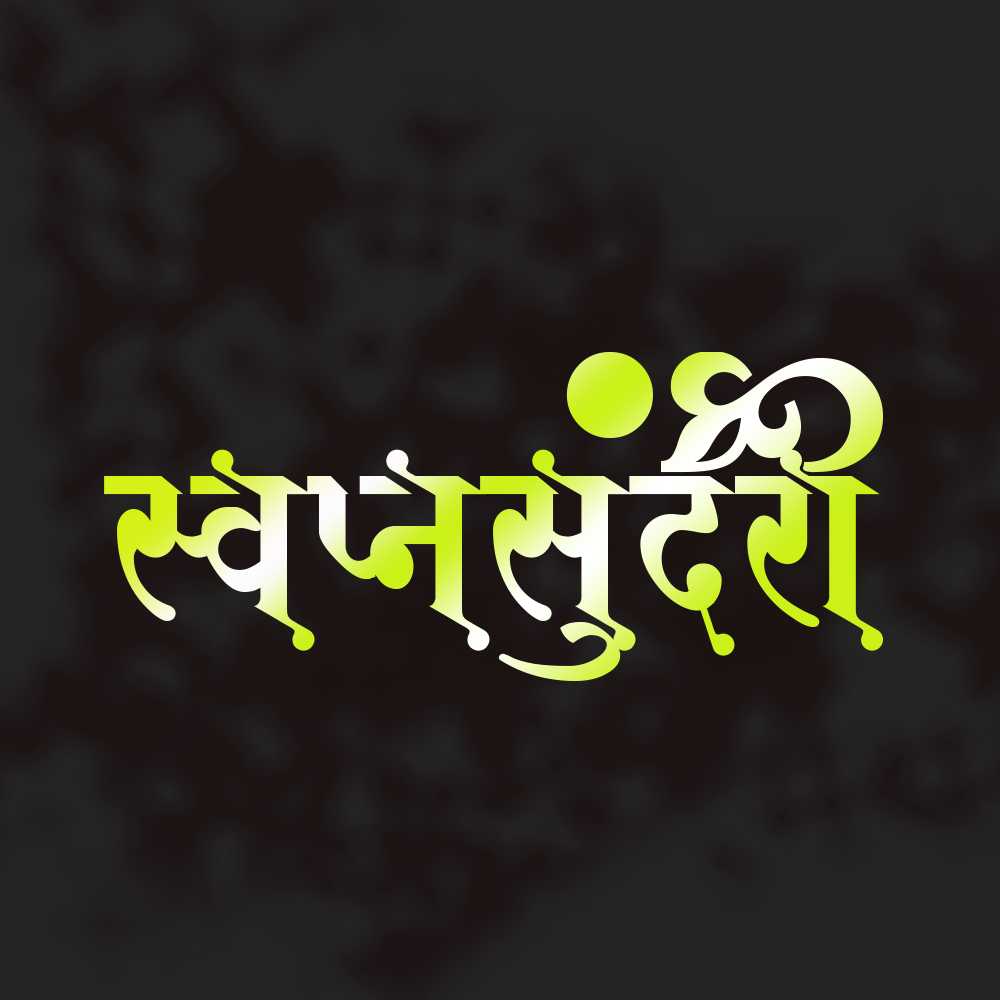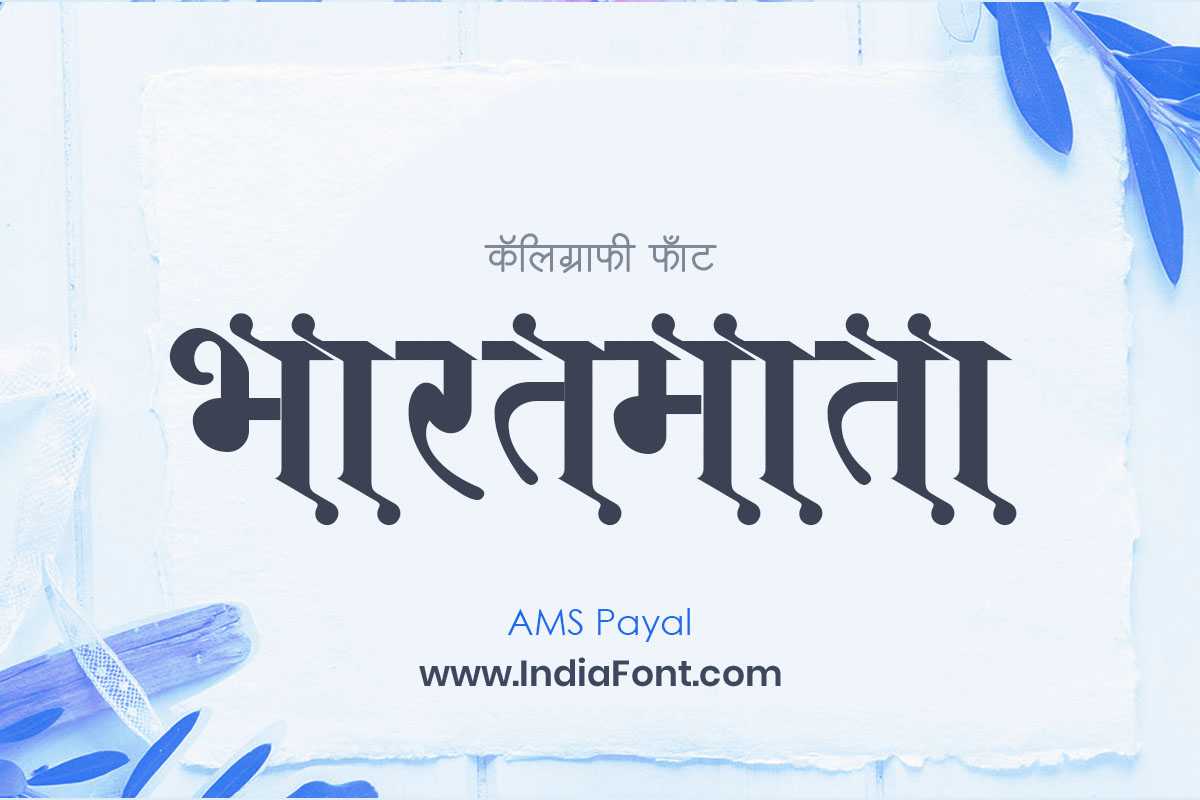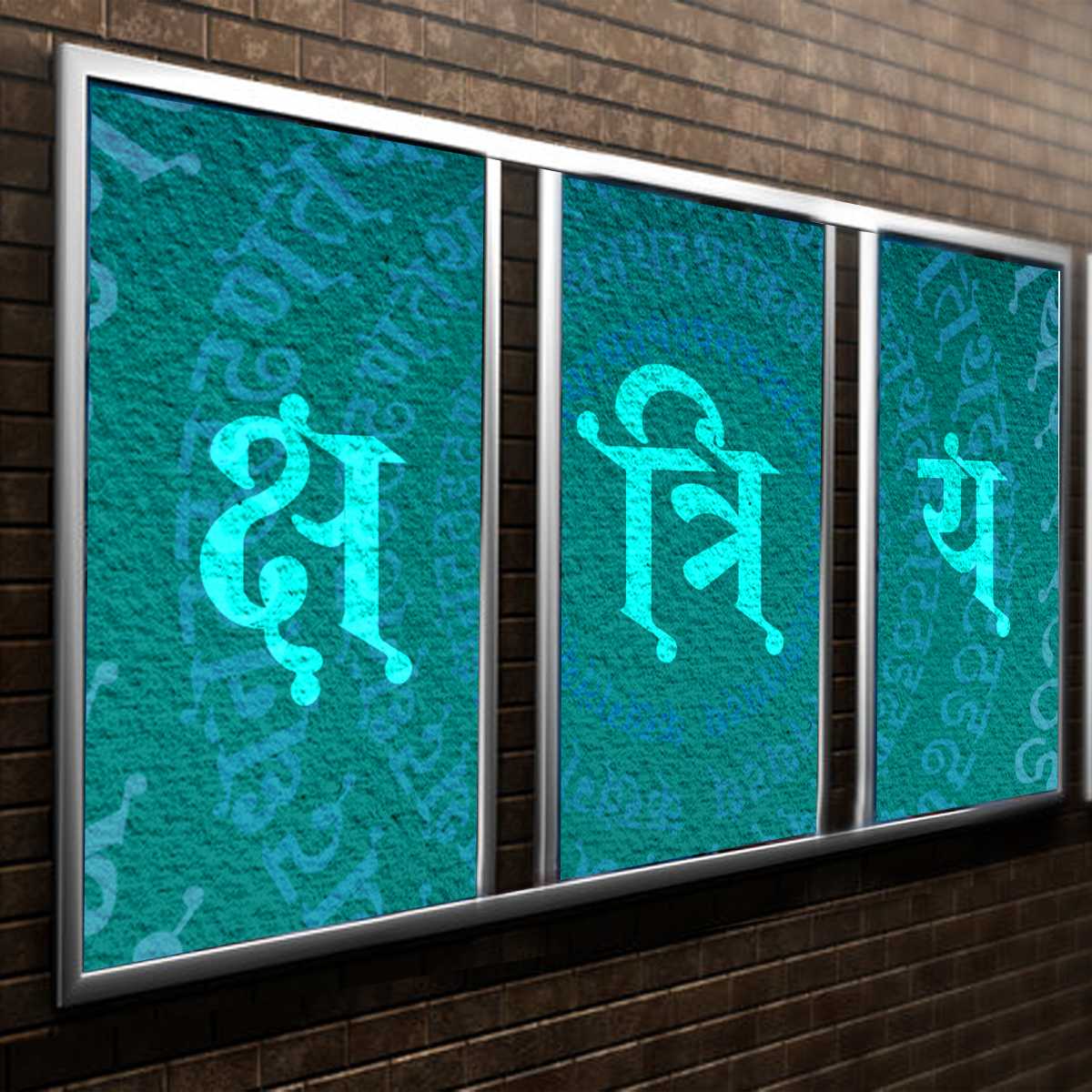
AMS Payal
Master AMS Payal: enchanting decorative font with intricate details and playful design. Perfect for stylish Hindi & Marathi designs with magical allure.
About AMS Payal Font
Master AMS Payal: enchanting decorative font with intricate details and playful design. Perfect for stylish Hindi & Marathi designs with magical allure. This decorative font combines elegance with functionality, making it perfect for various design applications.
AMS Payal is a professionally crafted decorative typeface that brings clarity and style to your projects. Designed with attention to detail, it supports hindi and marathi characters flawlessly.
Whether you're working on wedding-materials, invitations, headers, or other creative projects, AMS Payal delivers consistent performance across both digital and print media. This carefully designed typeface ensures readability and visual appeal in all your design work.
About AMS Payal Typography Style
AMS Payal is a professionally crafted decorative font that exemplifies modern Hindi typography design. This free font is perfect for designers seeking professional branding and logo design projects.
Available in 1 weight and supporting hindi, marathi scripts, AMS Payal offers exceptional versatility for both digital and print media. Whether you're working on wedding-materials, invitations, headers, this carefully designed typeface ensures consistent quality and professional results across all your typography projects.